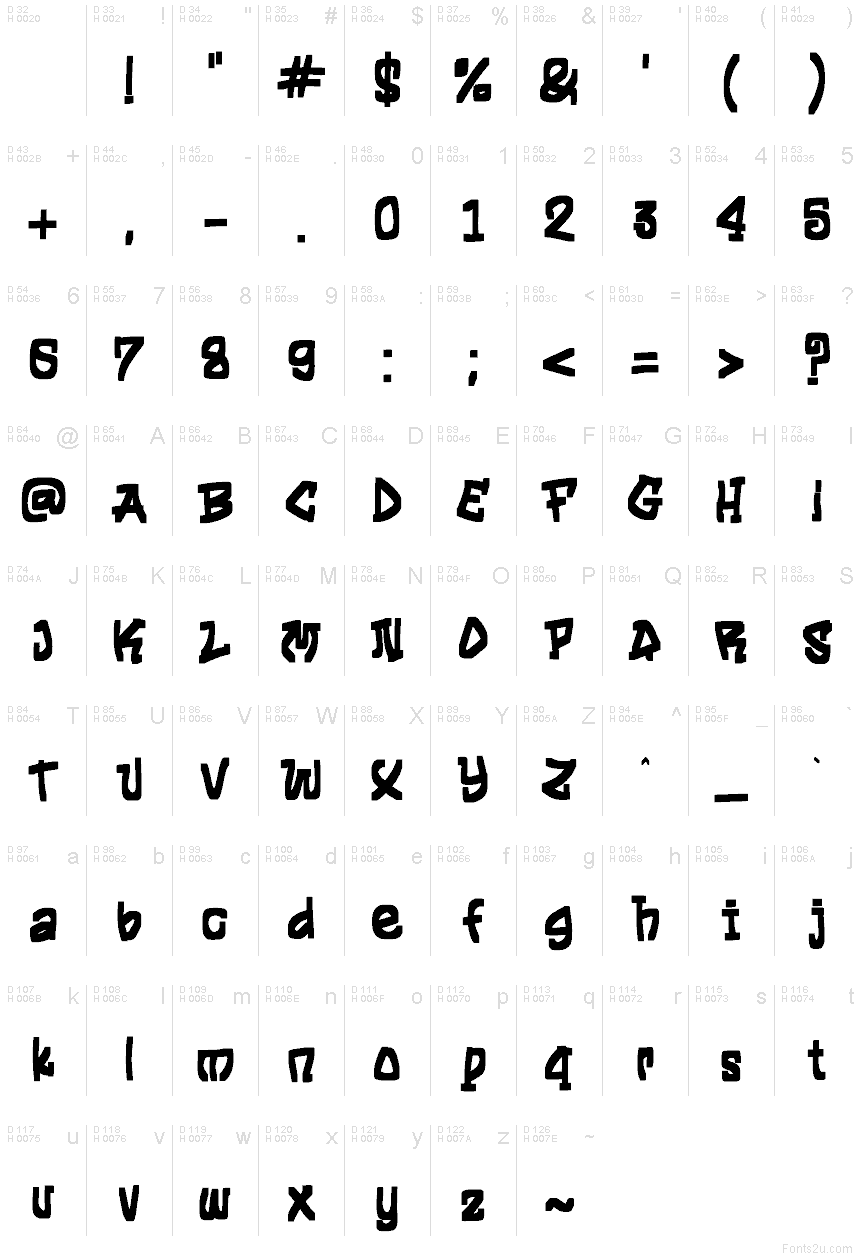
Anteprima del carattere Street Hawk Regular
Street Hawk font by selawetype is a free graffiti typeface. Its chunky, ink-heavy strokes and soft, swollen curves carry that hand-sprayed feel-casual, loud, and a little unruly. The letters bounce with a loose rhythm, filling space with confident blobs of black that read fast and hit hard, even at a glance.
Using Street Hawk, your message snaps to attention on streetwear logos, event posters, hip-hop cover art, skate brand marks, stickers, and bold YouTube thumbnails. The generous weight and playful sway create an energetic texture that holds up on busy backgrounds. For balance, pair this free font with a clean condensed sans for body copy, and let Street Hawk take the headline at oversized sizes with slightly tighter tracking.